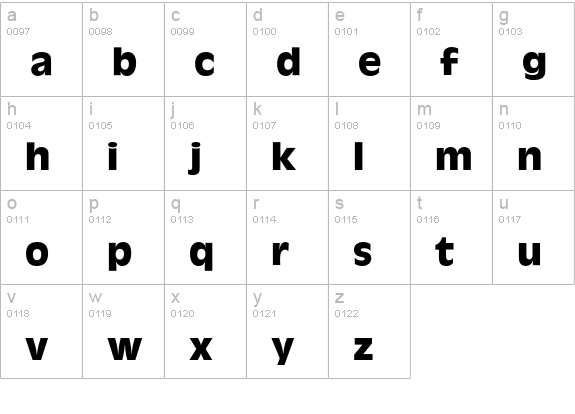
Antique Olive T Bold is a strong, high-contrast variant in the Antique typeface family \xE2\x80\x94 well suited to headlines, attention-grabbing titles, and strong calls-to-action.
Antique Olive T Bold is a timeless and elegant font that exudes sophistication and charm. Its bold and distinctive letterforms make a strong statement, perfect for headlines, titles, and branding projects. The font carries a sense of history and tradition, making it ideal for conveying a classic and refined aesthetic. The Antique Olive T Bold font is a versatile typeface that can be used across a variety of design projects, from print materials to digital applications. Its clean lines and balanced proportions ensure readability and visual impact, making it a standout choice for any design project. Best of all, Antique Olive T Bold is available for free download at FontsMarket.com. This means that you can easily access and use this premium font in your projects without any cost. Don't miss out on the opportunity to add this exquisite typeface to your font collection and elevate your designs with its timeless appeal.